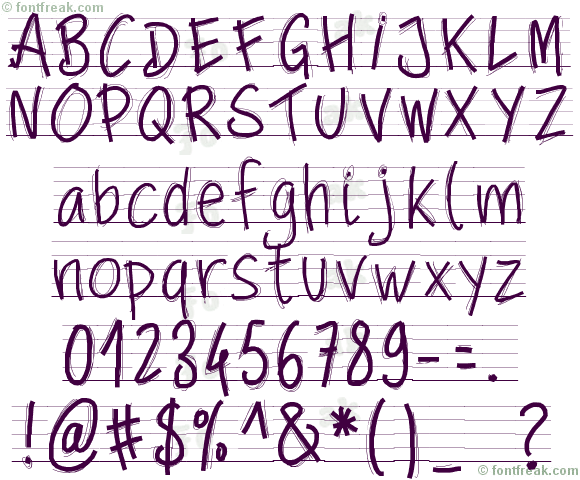
PWScolarpaper
PWScolarpaper, designed by Peax Webdesign, is a unique display font that captures an artistic and playful essence. This handwritten style font features a casual yet expressive character that mimics the look of handwritten notes on textured paper. The strokes exhibit a medium weight with a slight irregularity that adds charm and personality, making it perfect for conveying a sense of warmth and creativity. The spacing is well-balanced, allowing for easy readability while retaining a playful aesthetic.
The PWScolarpaper font is versatile, making it ideal for various creative projects. It excels in applications such as wedding invitations, where its whimsical nature can evoke a sense of joy and celebration. It's also a great choice for children's book covers, capturing the imagination of young readers with its friendly vibe. Additionally, restaurant menus can benefit from this font, providing a casual and inviting atmosphere that encourages diners to explore the offerings. Graphic designers will find it useful for promoting events, as the font's distinctive look commands attention without overwhelming the overall design.
Targeted towards graphic designers, small business owners, and content creators, PWScolarpaper is a font that can enhance branding and marketing efforts. Its freeware license makes it accessible for various projects, allowing users to incorporate this charming typeface without budget constraints.
What sets the PWScolarpaper font apart is its ability to blend artistic flair with functionality. It stands out in a crowded typography landscape, offering a fresh take on handwritten fonts that resonates with audiences looking for authenticity and creativity. For those seeking a delightful addition to their design toolkit, the PWScolarpaper font free download is a must-have.